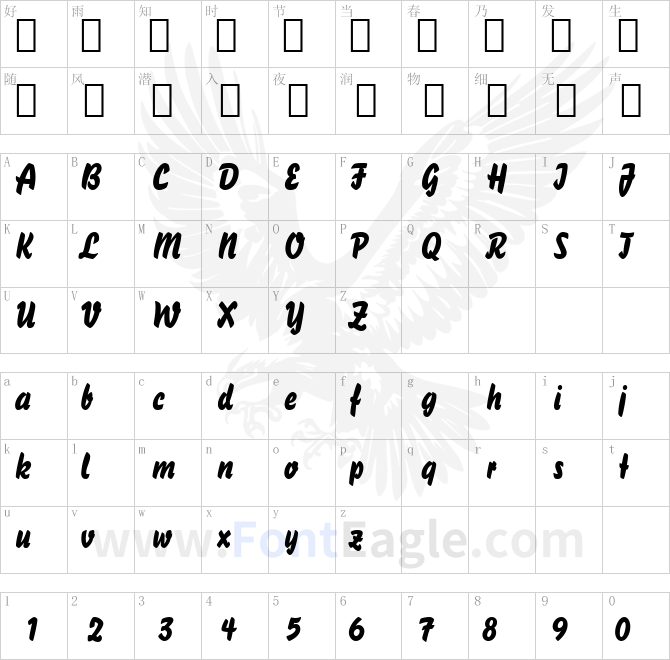
Brush-738-BT is a great font, widely used in graphic design, single-page menu design, poster design and other fields, and is deeply loved by designers.Brush-738-BT download.